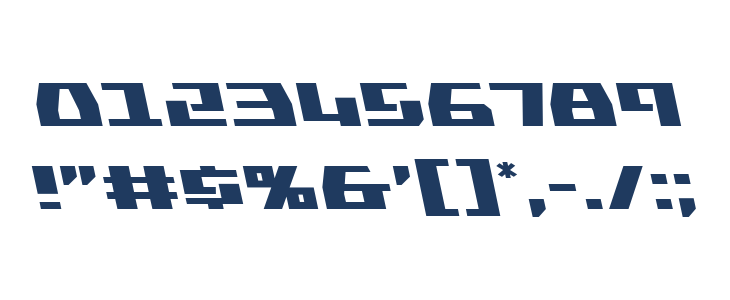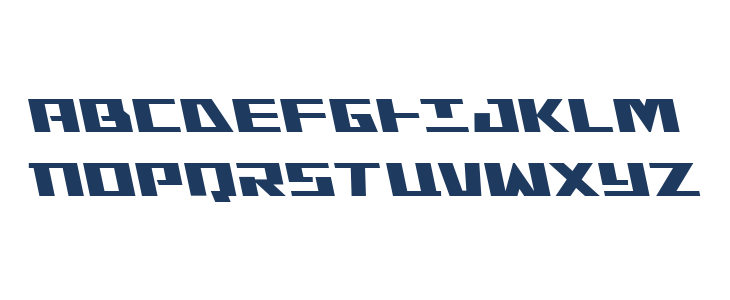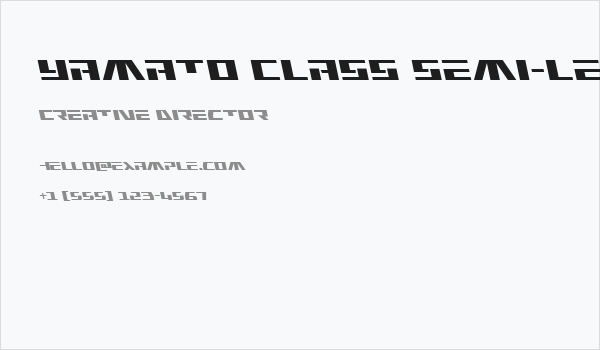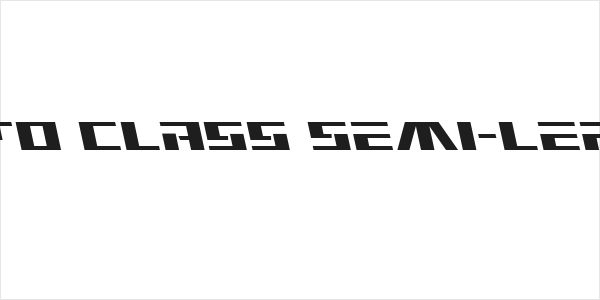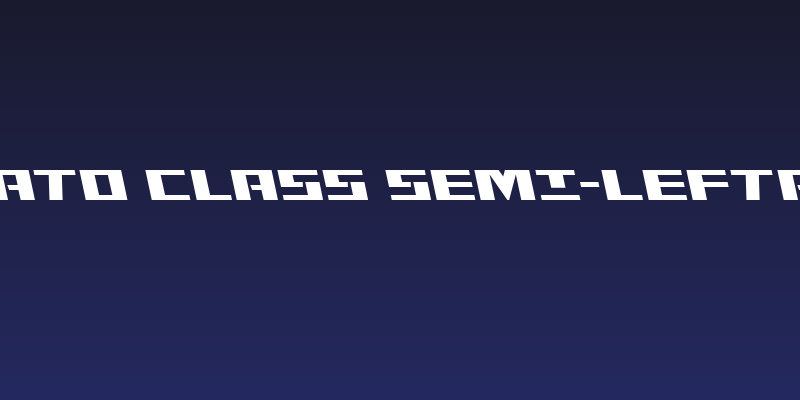
Yamato Class Semi-Leftalic Font
Yamato Class Semi-Leftalic Description
A geometric, angular display typeface with sharp edges and a futuristic, stencil-like appearance. The letterforms are bold, wide, and feature consistent diagonal cuts, giving a mechanical and industrial feel. Both uppercase and lowercase are present, but lowercase mimics uppercase in form. Numbers and special characters maintain the same angular, blocky style.
| Overall Style | Futuristic, Industrial, Decorative |
| Use Case | Headlines, Logos, Posters, Signage |
| Proposed Projects | Video game titles, sci-fi posters, branding for tech products, military-themed graphics, signage. |